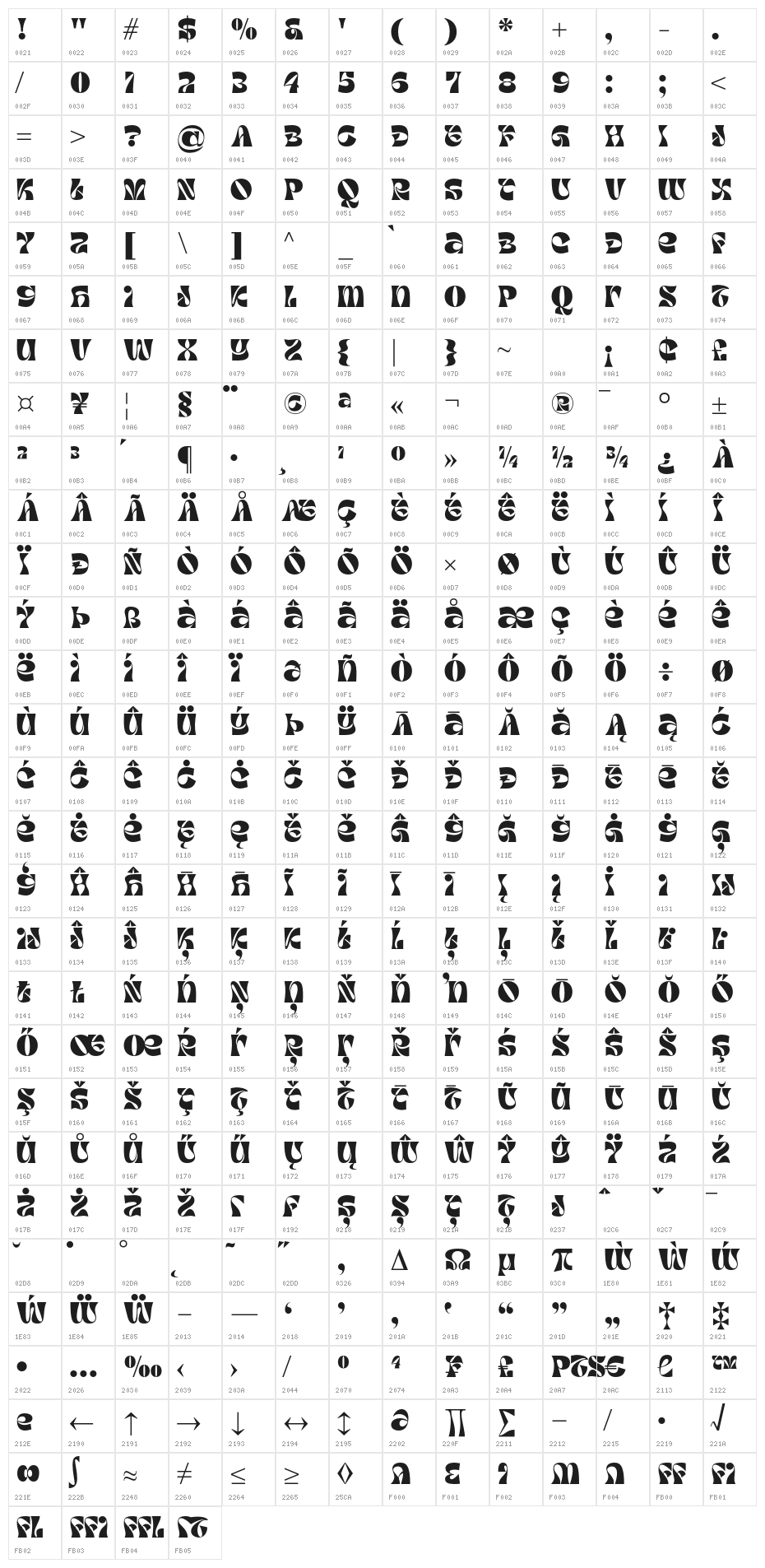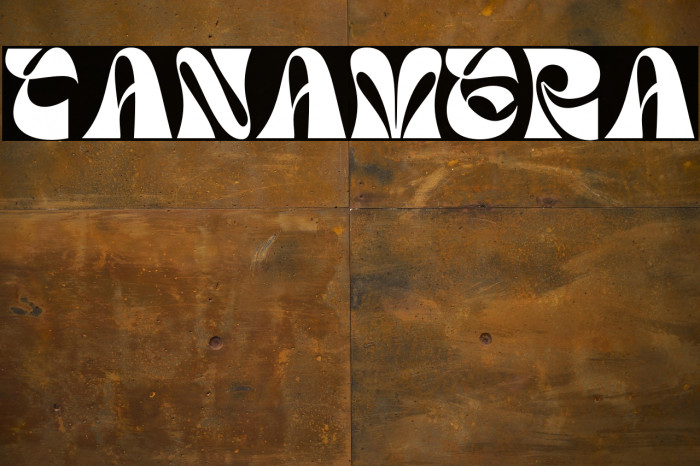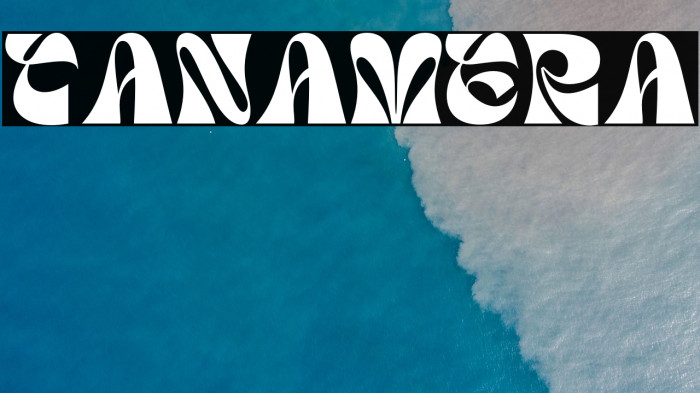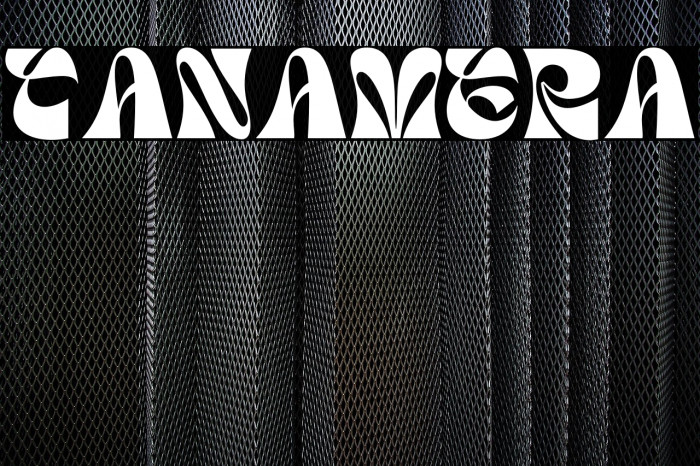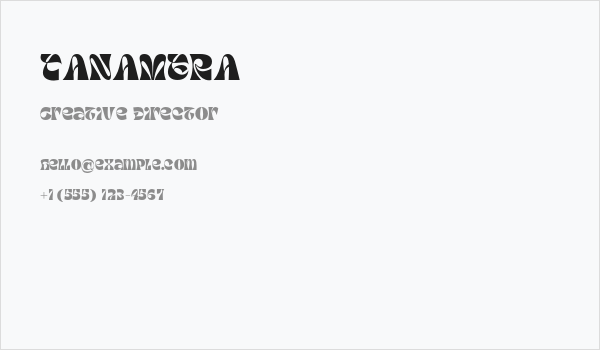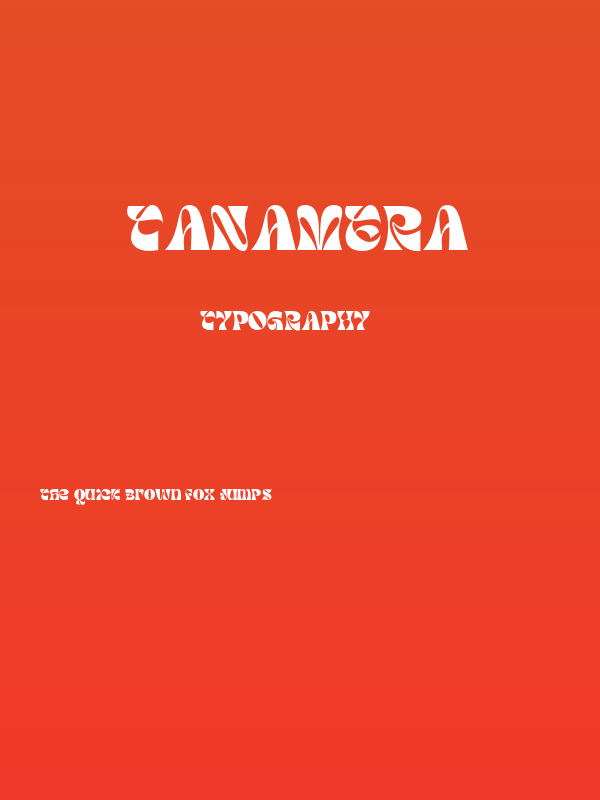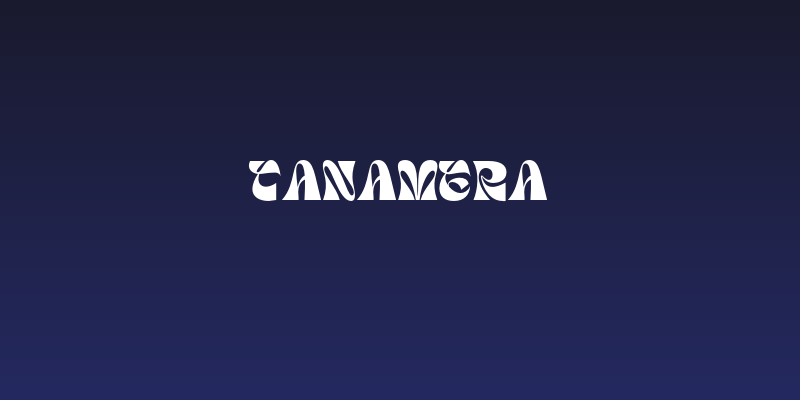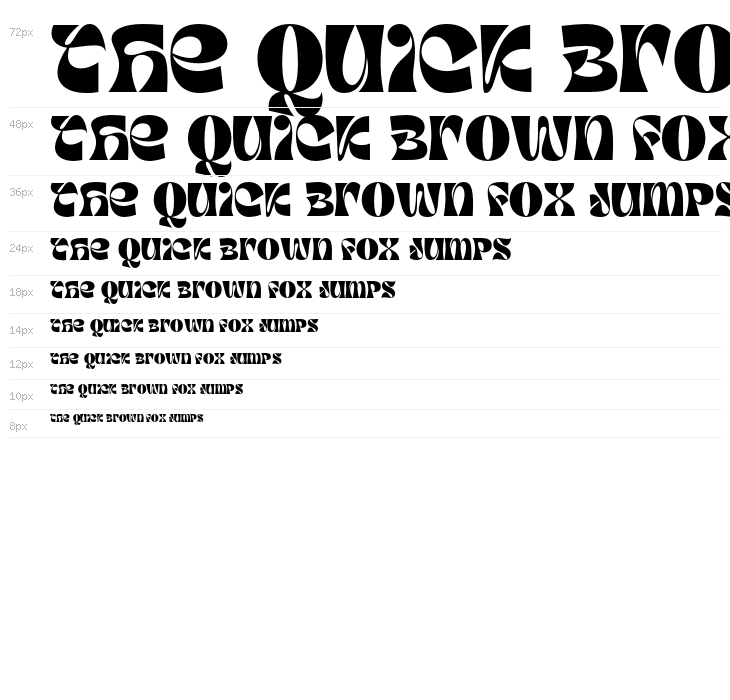
TANAMERA Font
TANAMERA Description
This font features a bold and artistic design with a unique blend of geometric shapes and curves. Each character is crafted with a high contrast between thick and thin strokes, creating a striking visual impact. The uppercase and lowercase letters maintain a consistent style, with the uppercase being more pronounced. The numbers and special characters follow the same design principles, ensuring a cohesive look across all glyphs. The font's decorative nature makes it ideal for eye-catching designs.
| Proposed Projects | Ideal for poster designs, branding projects, album covers, and any creative work that requires a bold statement. |